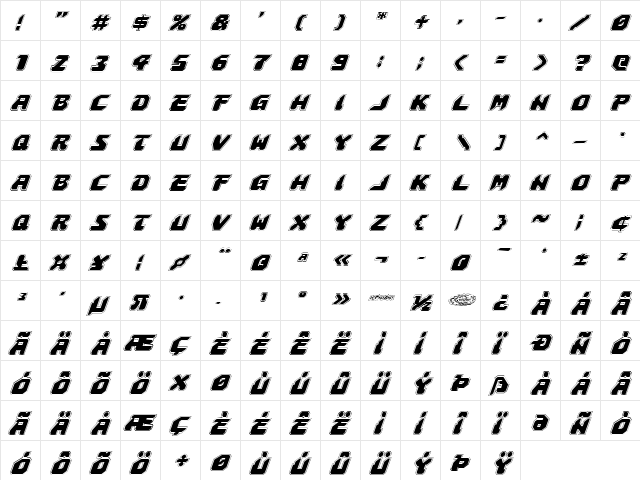
Astropolis Academy Italic Italic
Design Context for Astropolis Academy Italic Typeface
Astropolis Academy Italic is a composed and adaptable typeface that performs quietly and consistently across a wide range of design contexts. The slanted form adds forward momentum and visual energy.
Pro Tip: Try Astropolis Academy Italic for annotation and caption copy alongside an upright companion — the contrast in angle creates a dynamic but ordered typographic system.